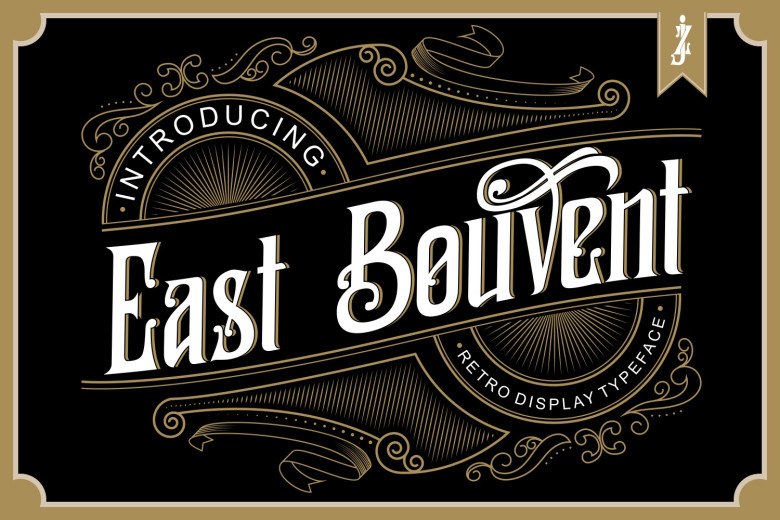
East Bouvent Font
East Bouvent draws its inspiration from classic luxurious lettering, retro illustrations from the past, and Victorian calligraphy. This retro East Bouvent style can be applied in multiple applications like labels for product packaging or advertising campaigns, interior decoration projects and much more.
East Bouvent Display Font